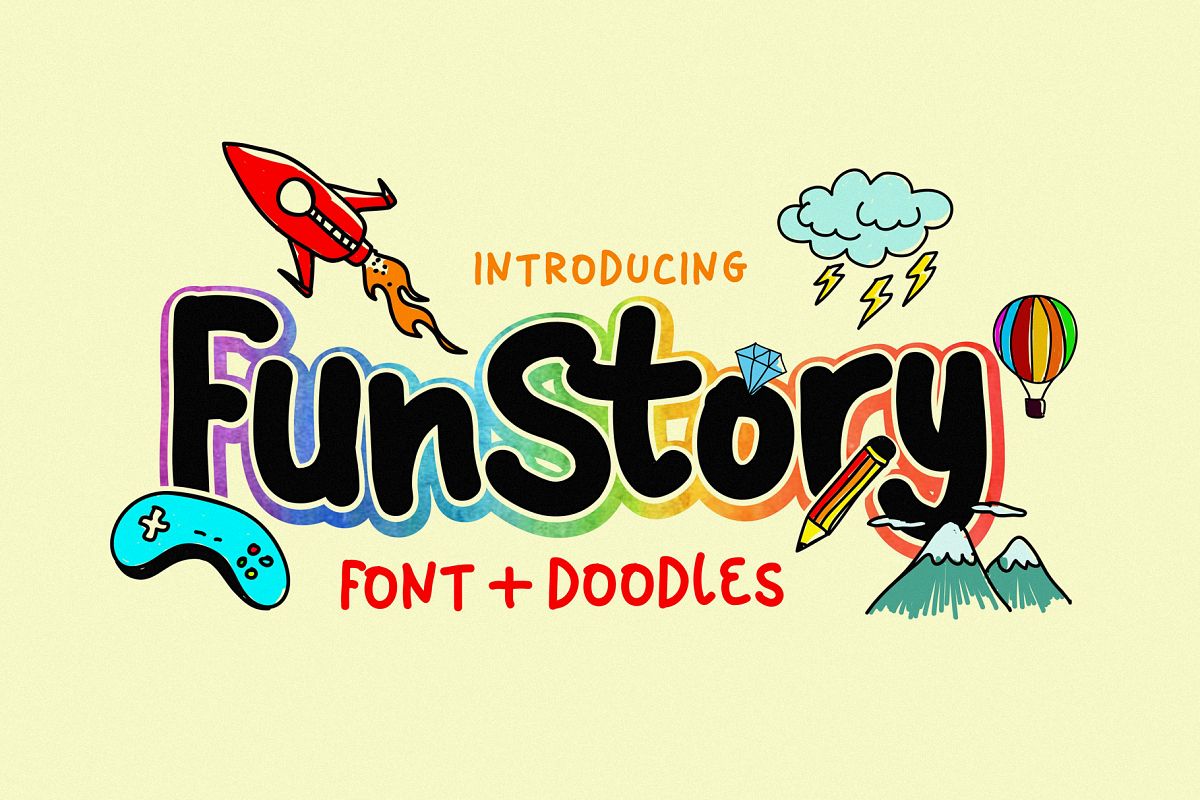
Fun Story Font
Fun Story Slanted
Fun Story
Fun Story is Children Font !!
yes its only for childrens or kids design purpose i.e kid book, baby tees, kid brand etc.
include 61 doodle illustration.
Fun Story Font